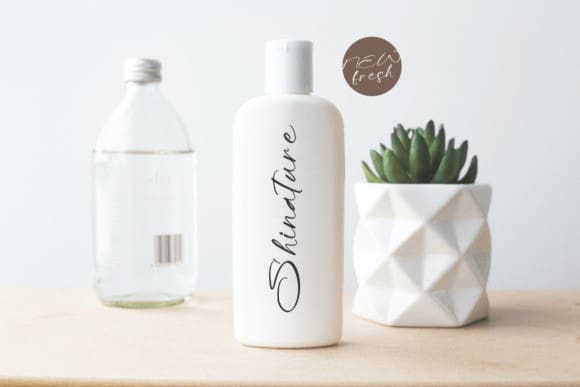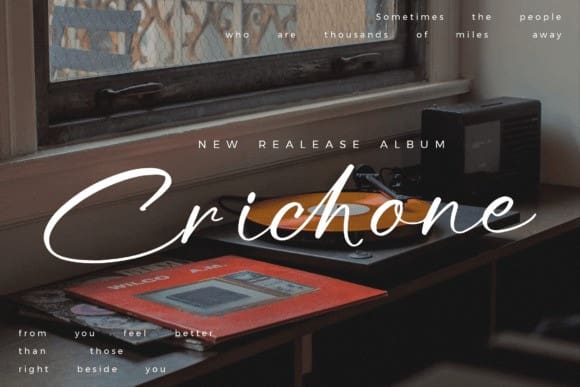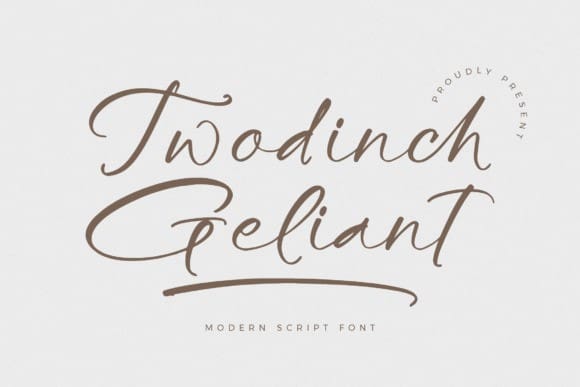
Twodinch Geliant Font
Twodinch Geliant Font – Modern Script Font , from Glorytype Studio, suitable for any projects such as: logos, branding projects, homeware designs, product packaging, mugs, quotes, posters, shopping bags, t-shirts, book covers, name card, invitation cards, greeting cards, label, photography, watermark, special events, and all your other lovely projects that need a beautiful script taste.